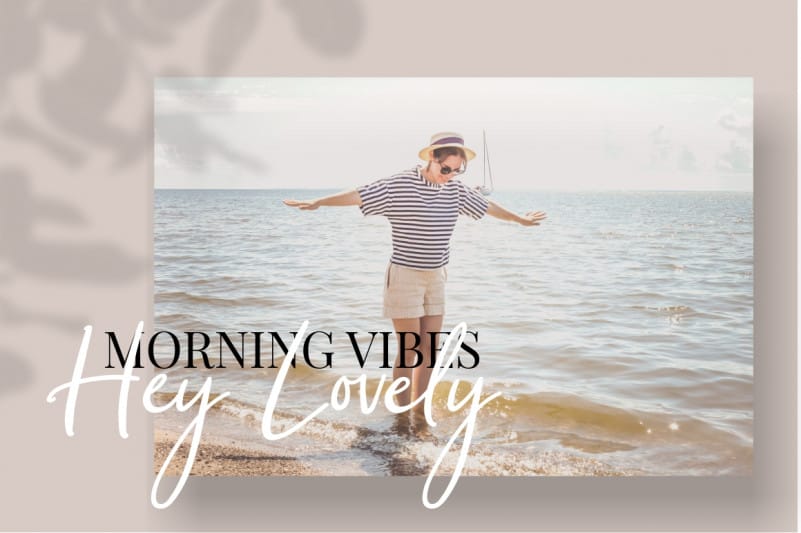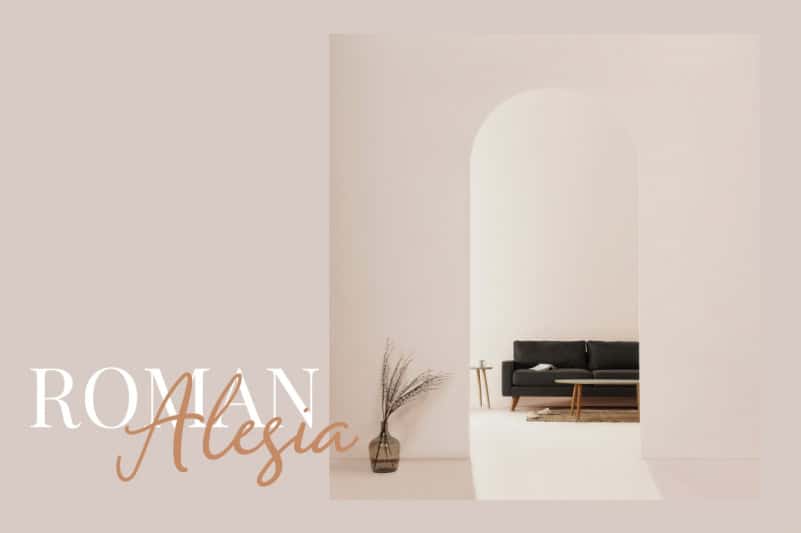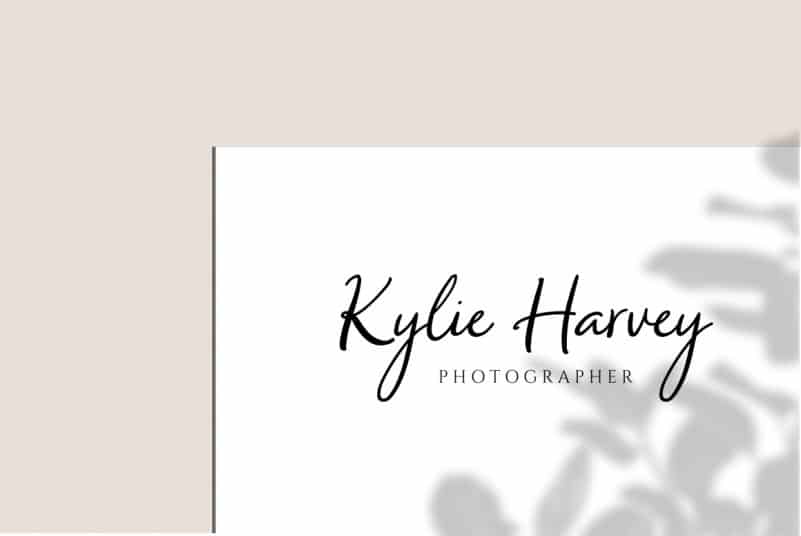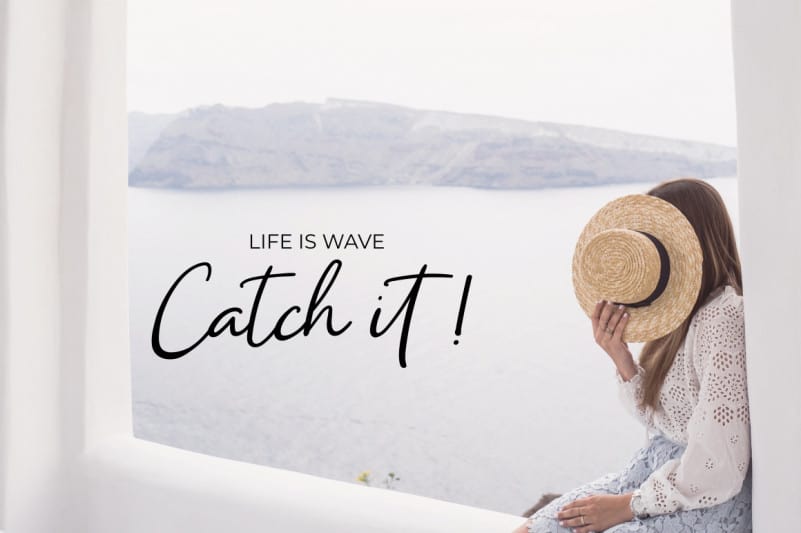
South Dallas Script Font
South Dallas Script Font is a stylish handwritten script font with elegant inky flow.
South Dallas includes full set of charming uppercase and lowercase international letters, numerals, a large range of punctuation and ligatures. All lowercase letters include beginning and ending swashes. It’s the perfect choice for stylish branding & logo projects, product packaging, handwritten quotes, editorial design invites, greetings and so much more!